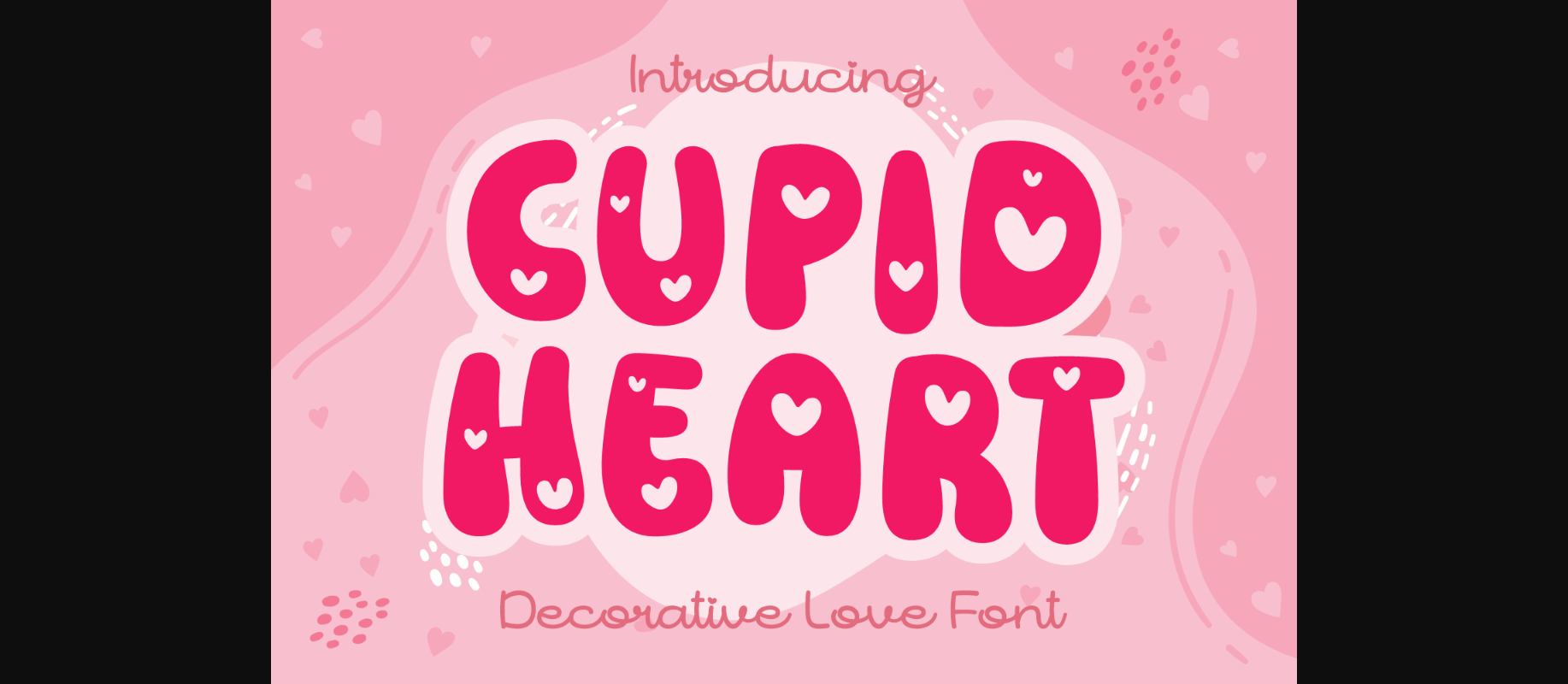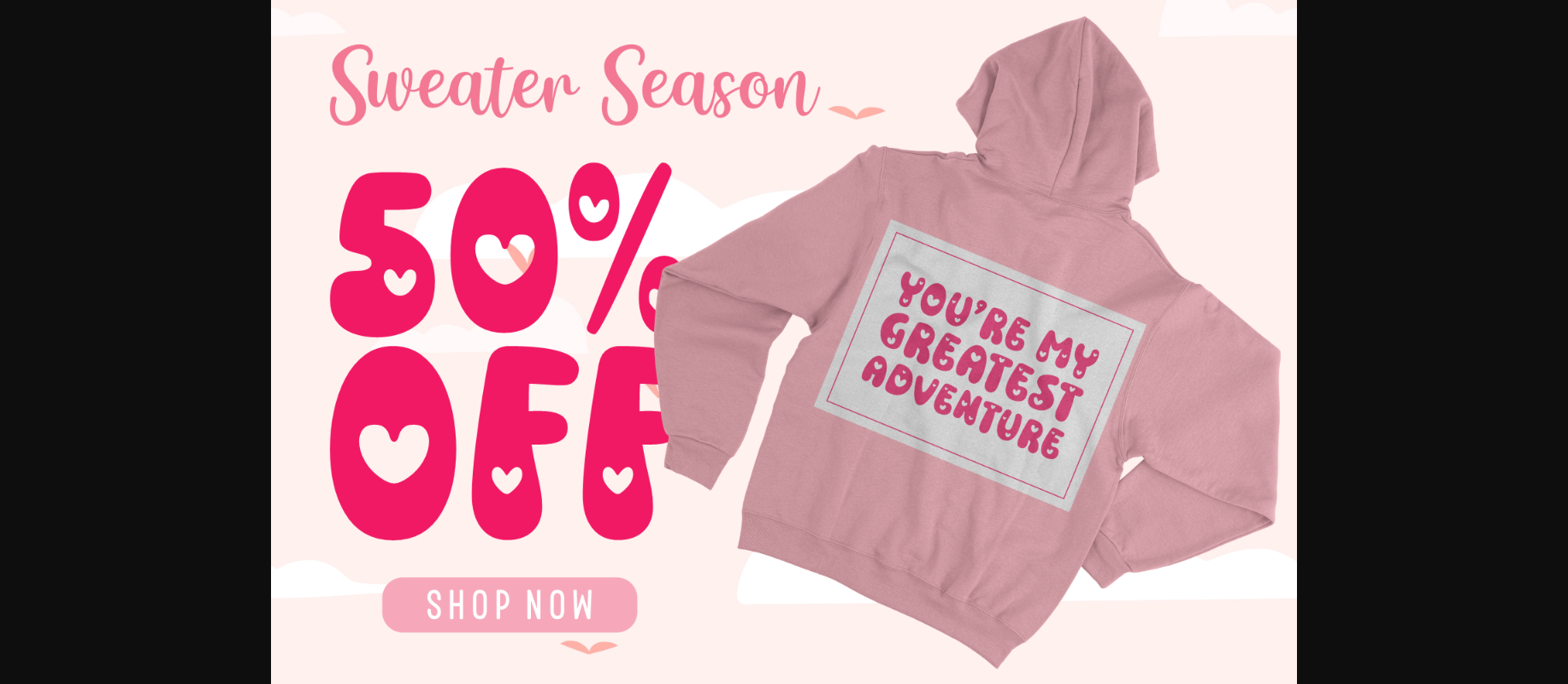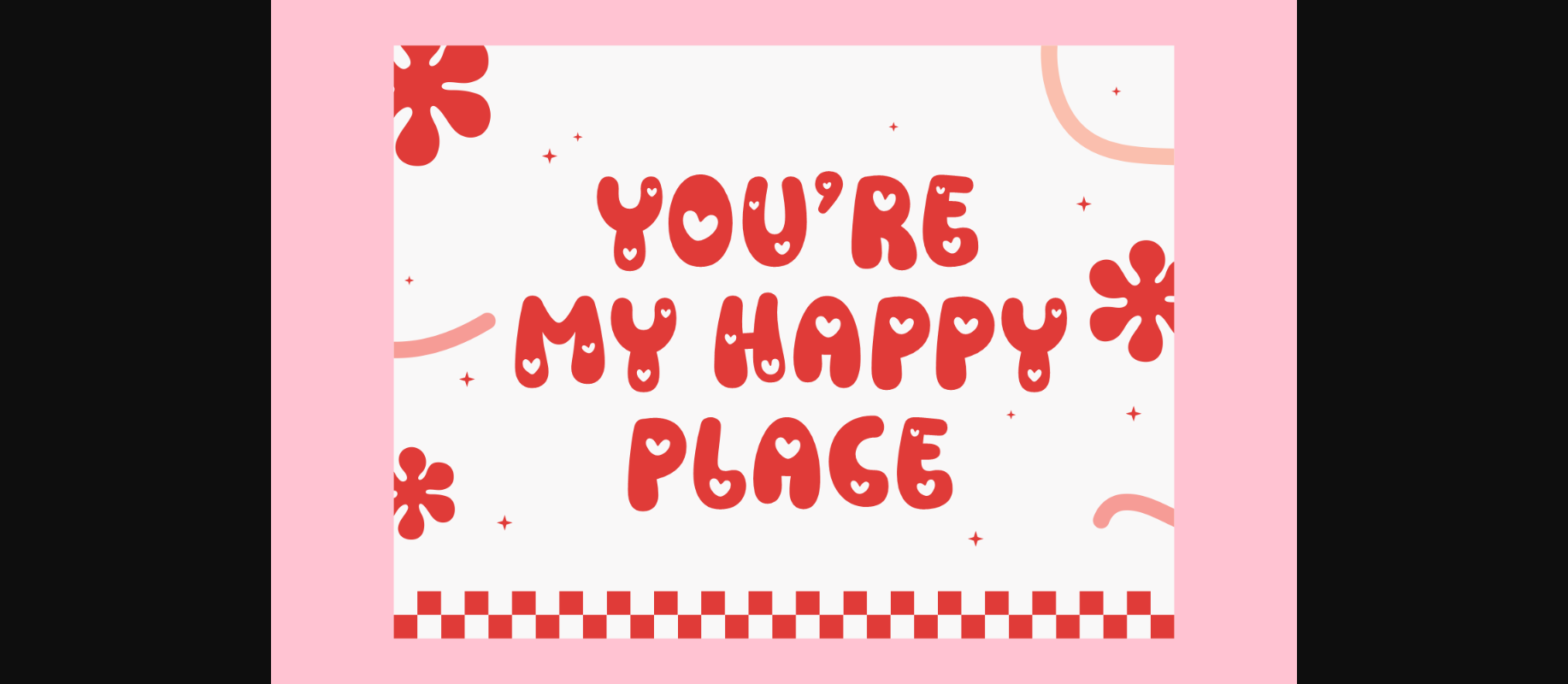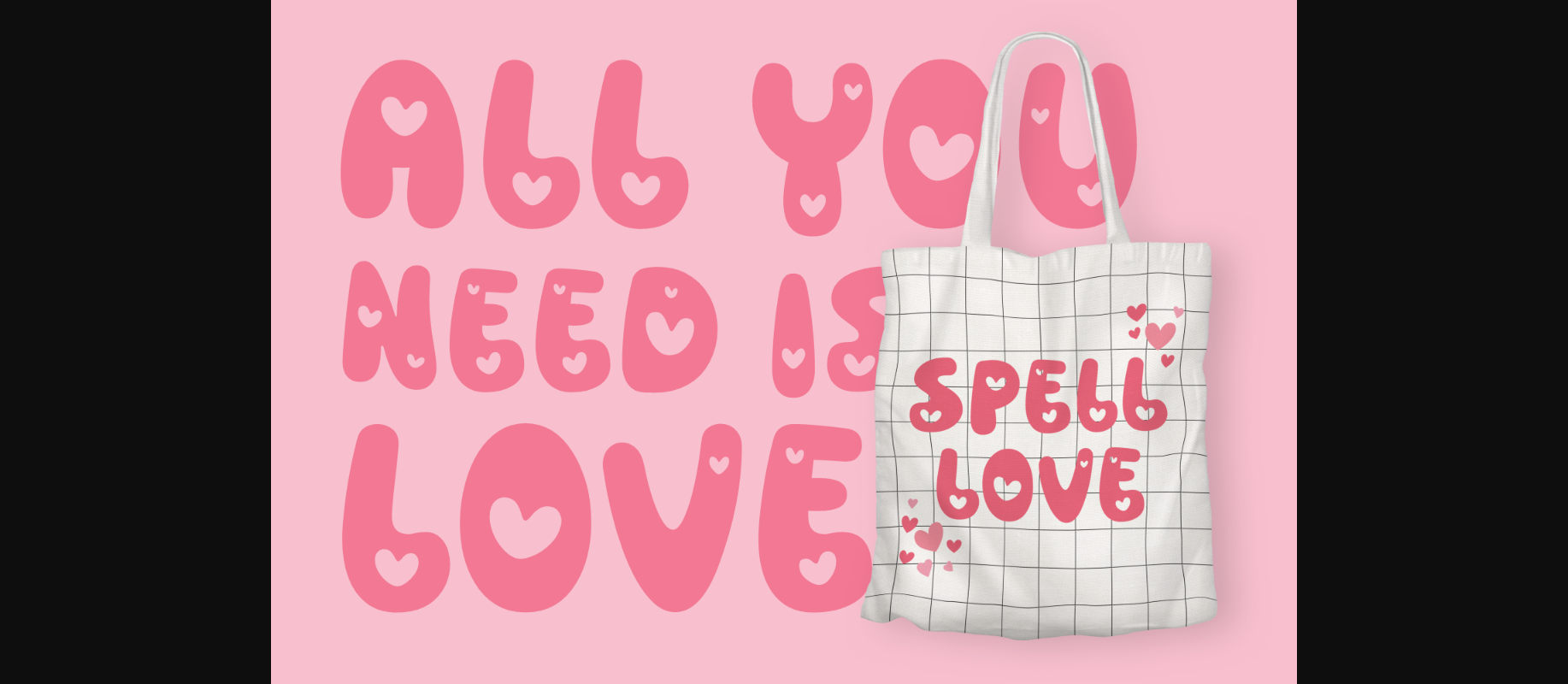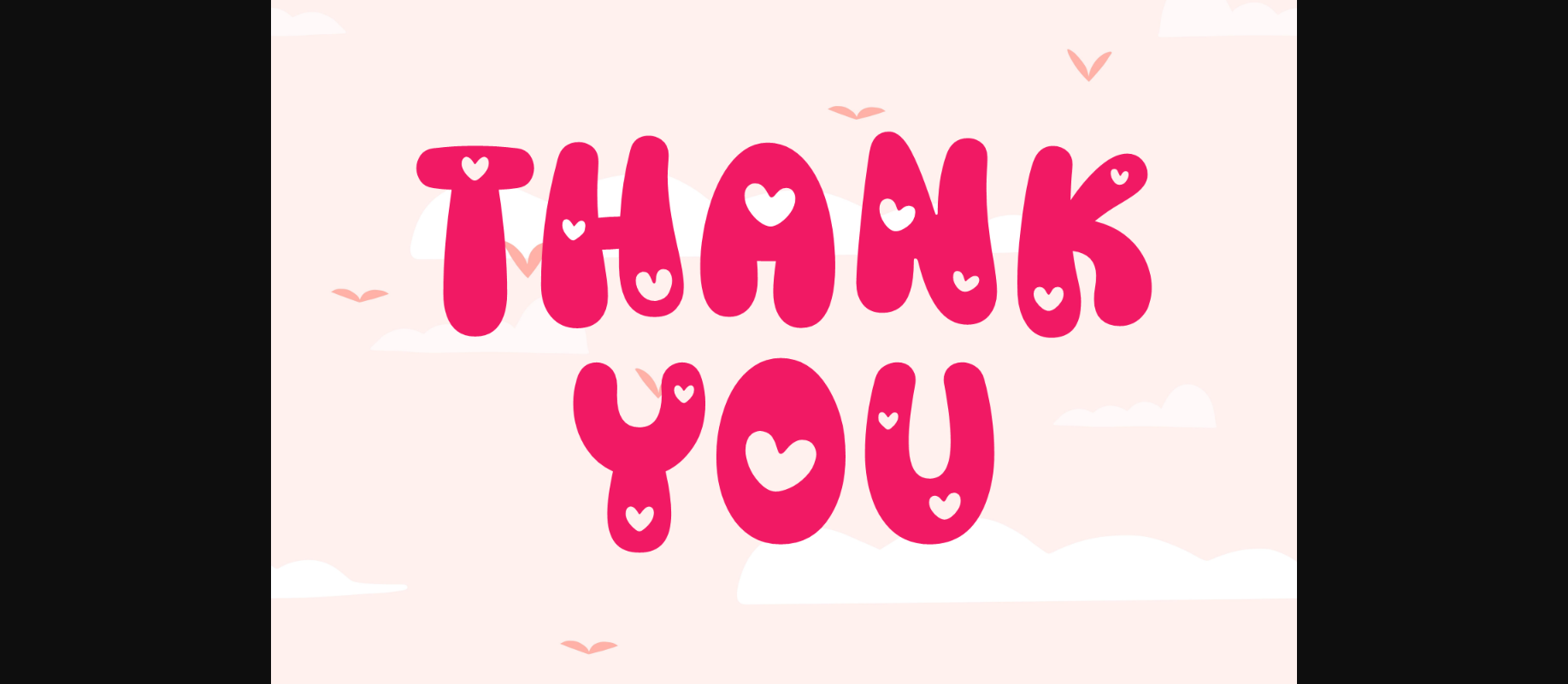
Cupid Heart Font
About Cupid Heart Font
Cupid Heart is a cute and chubby decorative font that brings a playful vibe to your projects. Its fun feature includes little hearts sprinkled throughout the letters, adding an extra touch of sweetness. Ideal for expressing love, joy, or whimsy, this font is perfect for creating cheerful designs. Whether you’re crafting invitations, greeting cards, or any project that needs a dash of fun, Cupid Heart is the go-to choice for a delightful and heartwarming look.